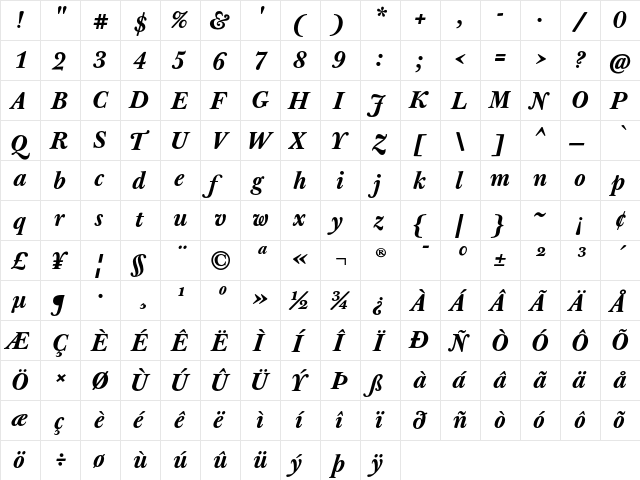
J Baskerville TxN Bold Italic Font Preview
J Baskerville TxN Bold Italic
J Baskerville TxN Bold Italic Font Details
Design Context for J Baskerville TxN Typeface
J Baskerville TxN is a composed and adaptable typeface that performs quietly and consistently across a wide range of design contexts. Its italic angle brings a sense of urgency and motion to the letterforms. Its bold stroke weight gives it real presence on the page.
Pro Tip: Try J Baskerville TxN for annotation and caption copy alongside an upright companion — the contrast in angle creates a dynamic but ordered typographic system.